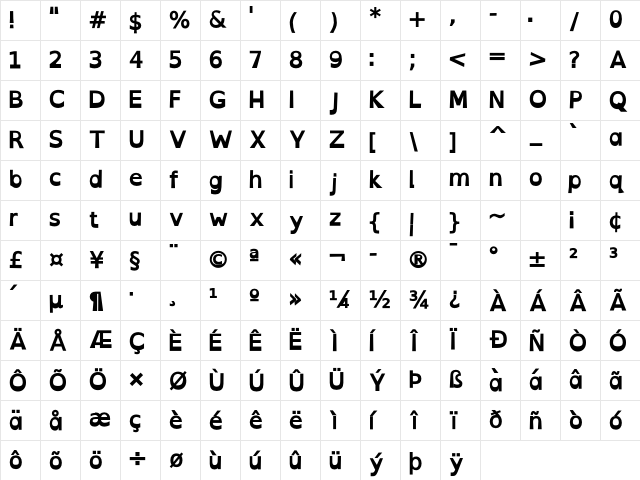
OpenDyslexicAlta NF Bold Free Font
OpenDyslexicAlta NF Bold
Designer: Abelardo Gonzalez
Design Context for OpenDyslexicAlta NF
OpenDyslexicAlta NF is a composed and adaptable typeface that performs quietly and consistently across a wide range of design contexts. Its bold stroke weight gives it real presence on the page.